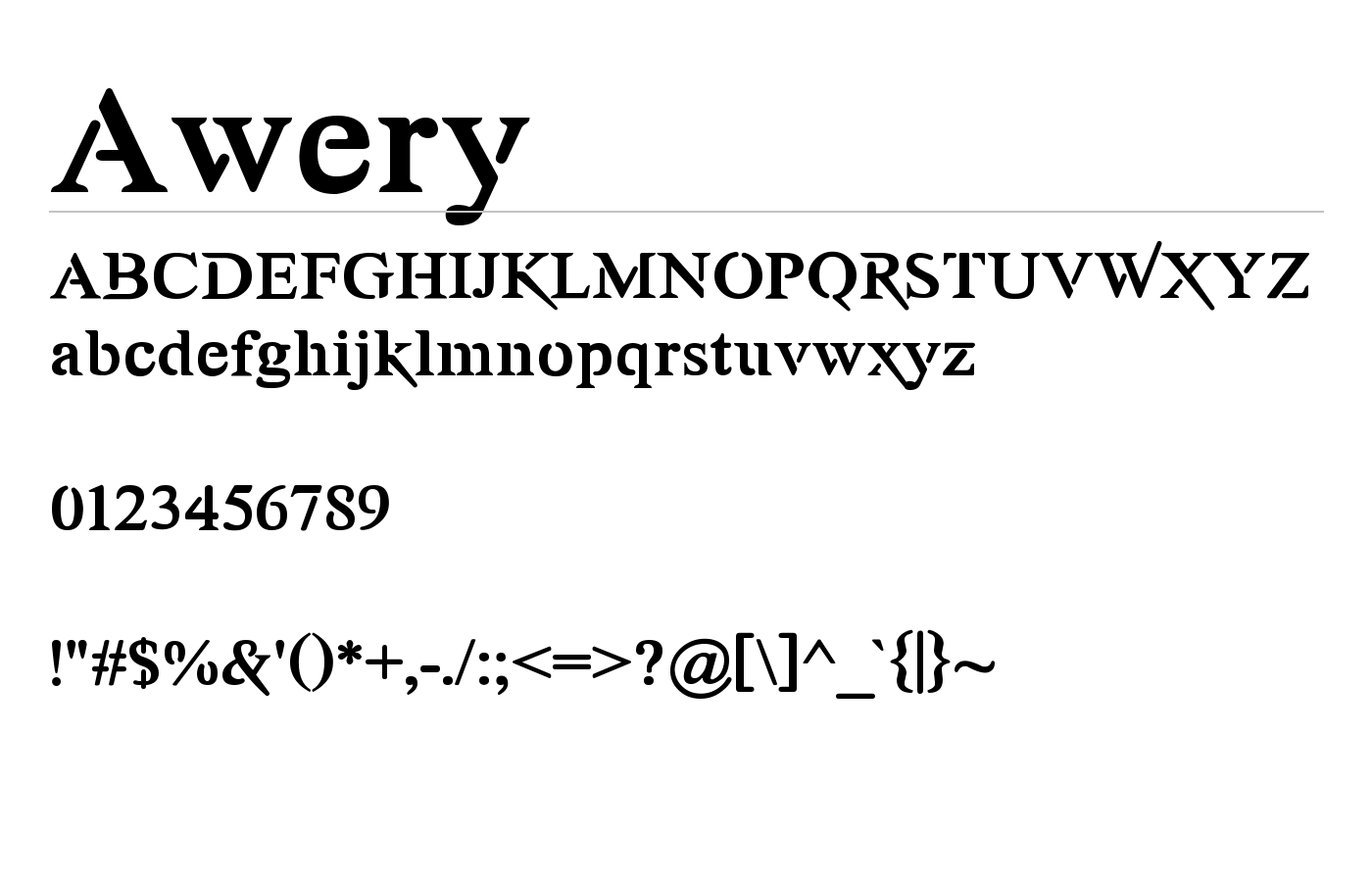
Awery is a distinctive serif font with a strong personality, featuring sharp, angular serifs and unique letterforms that convey a sense of elegance combined with a modern, artistic flair. Its moderate contrast and medium weight make it versatile for stylish headlines, branding, and editorial use, especially where a touch of sophistication and individuality is desired. This font works well for fashion, luxury projects, and creative designs that seek to stand out with bold yet refined typography.
Awery Font
About Awery Font